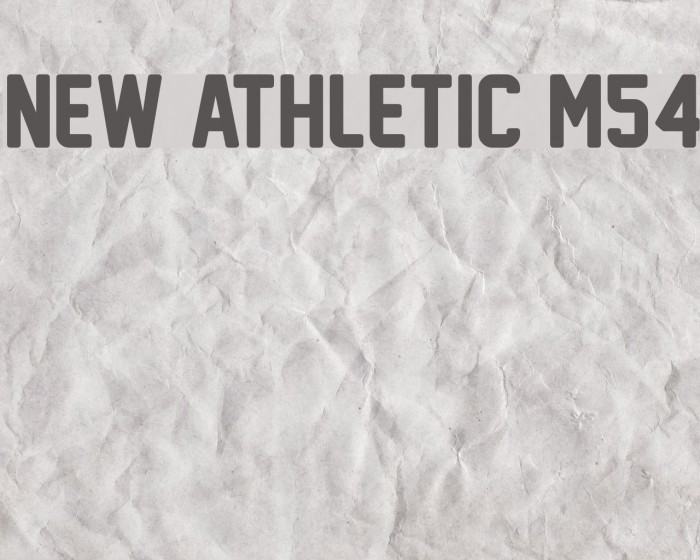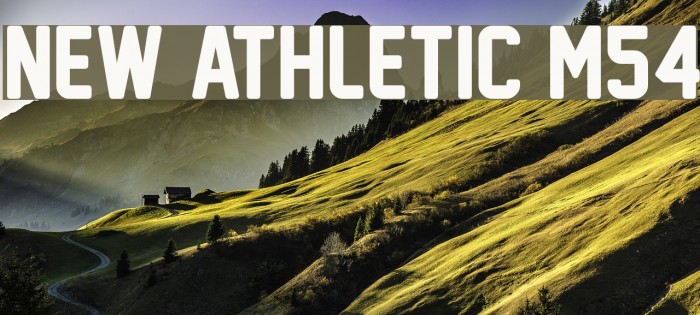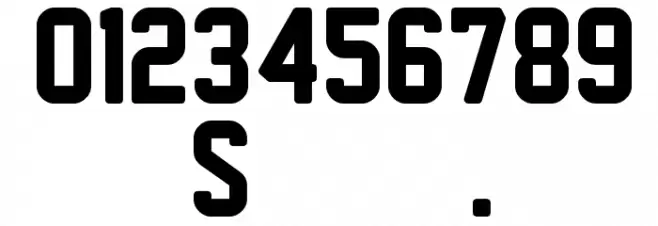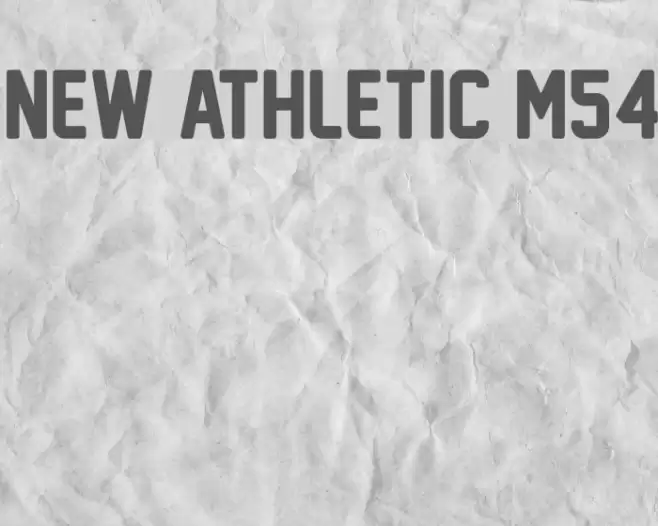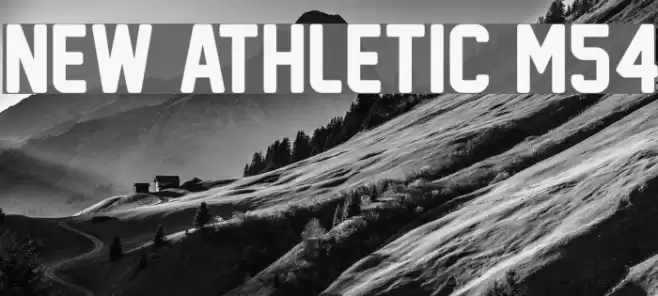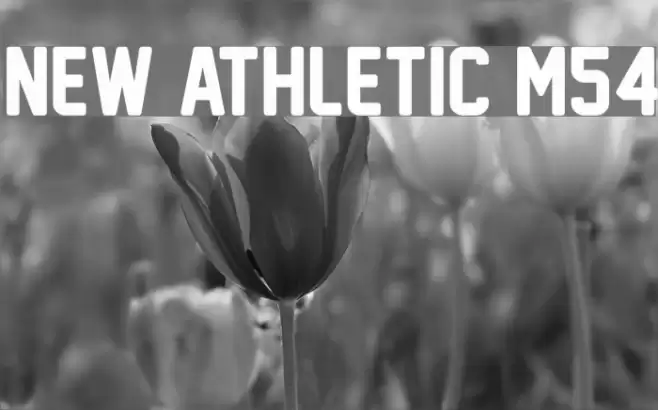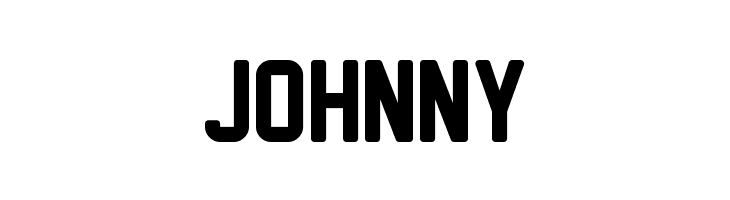
New Athletic M54 Font
This font features a bold, athletic style with strong geometric shapes and a robust presence. The uppercase letters are characterized by their blocky, squared-off edges, giving a sense of strength and stability. The numbers follow a similar design, maintaining uniformity across the character set. The font's design is reminiscent of sports jerseys and athletic branding, making it ideal for projects that require a bold and impactful statement. The characters are evenly spaced, ensuring readability while maintaining a compact appearance. This font is perfect for creating eye-catching headlines, sports-related graphics, and dynamic logos.
A bold, athletic font with geometric shapes and strong presence.
- Proposed Projects: Ideal for sports branding, team jerseys, dynamic logos, and bold headlines.